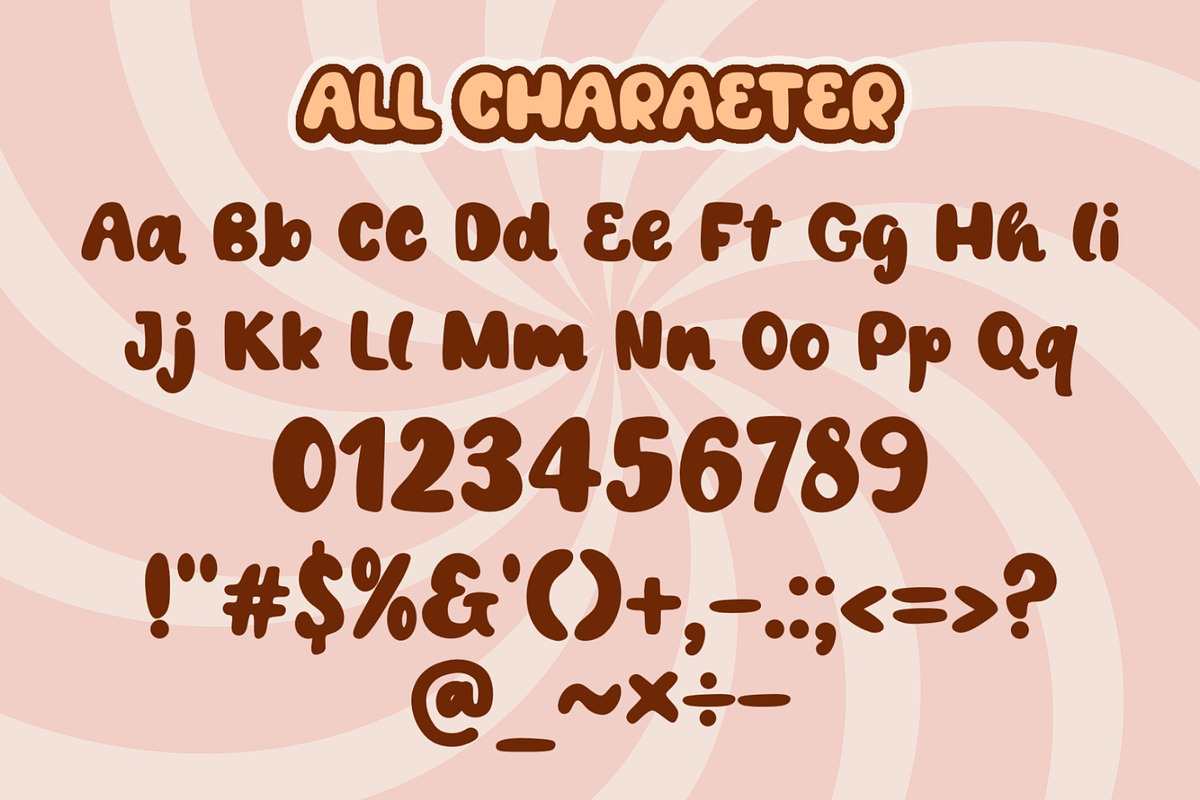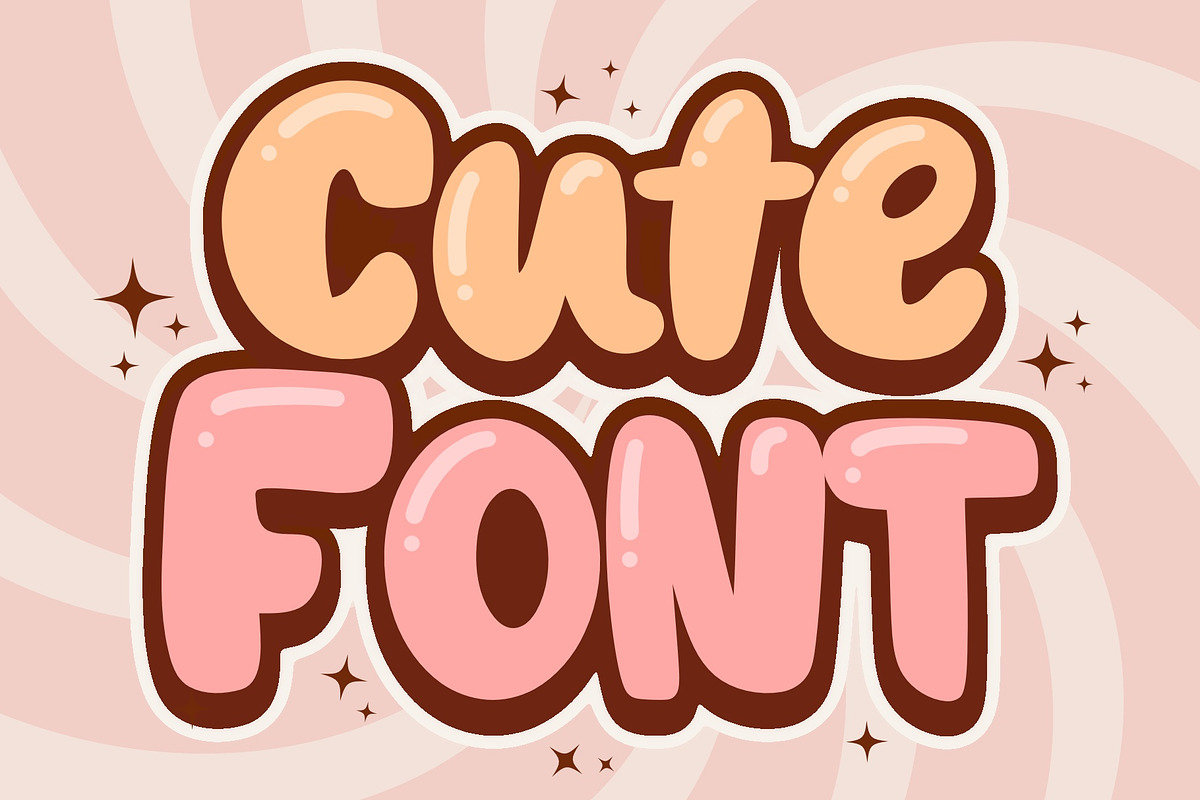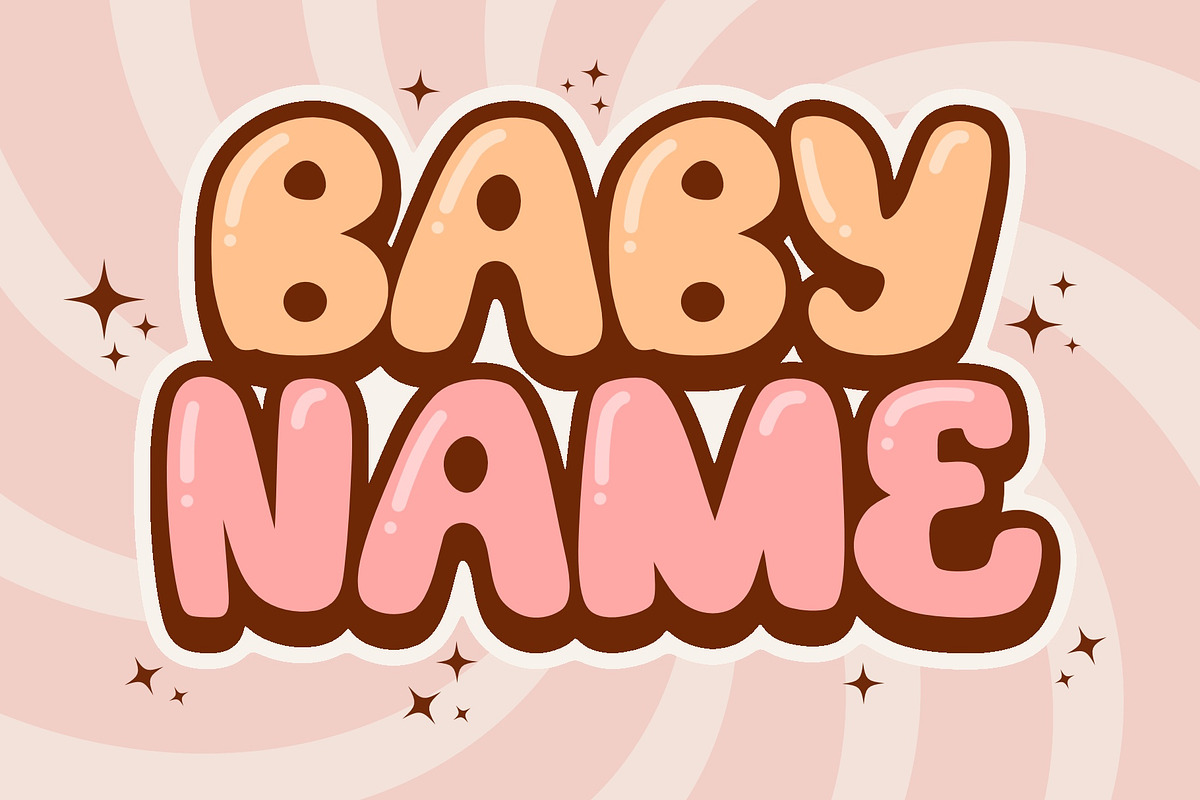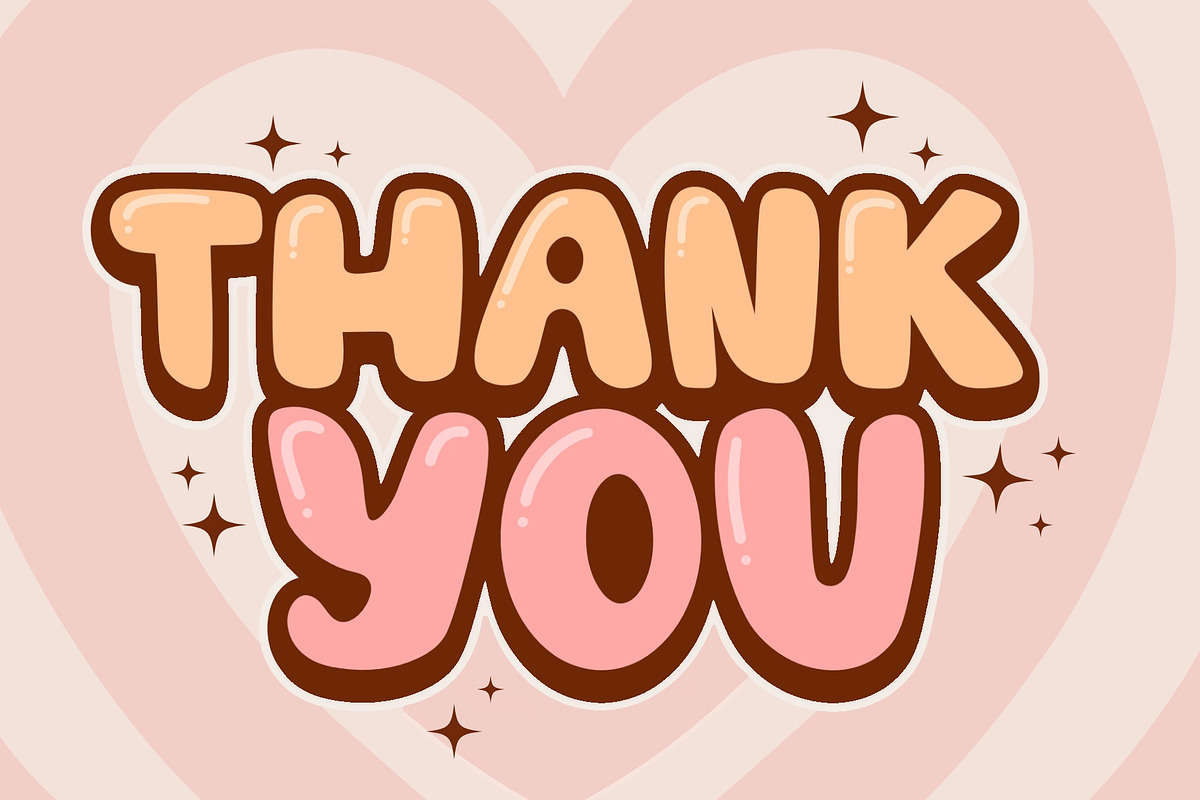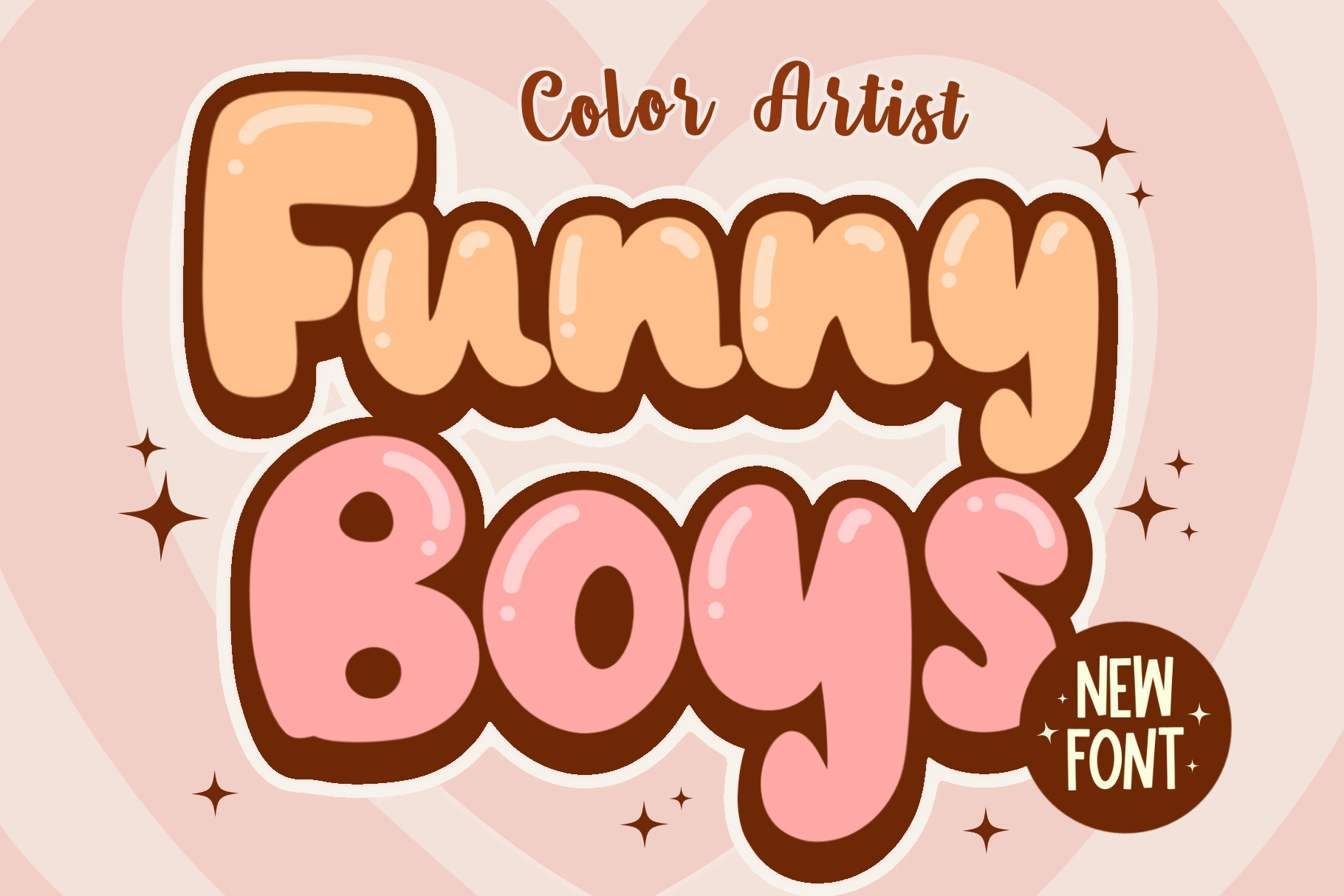
Funny Boys Font
Introducing the Funny Boys Font, where laughter and creativity collide! This playful and whimsical typeface is designed to add a dash of humor and charm to your designs. With its quirky letterforms and delightful characters, Funny Boys Font will bring smiles to everyone's faces. Whether you're designing funny greeting cards, hilarious posters, or playful social media graphics, this font will tickle the funny bone of your audience. Its versatility allows it to be used for various design styles, from cute and quirky to bold and eye-catching.